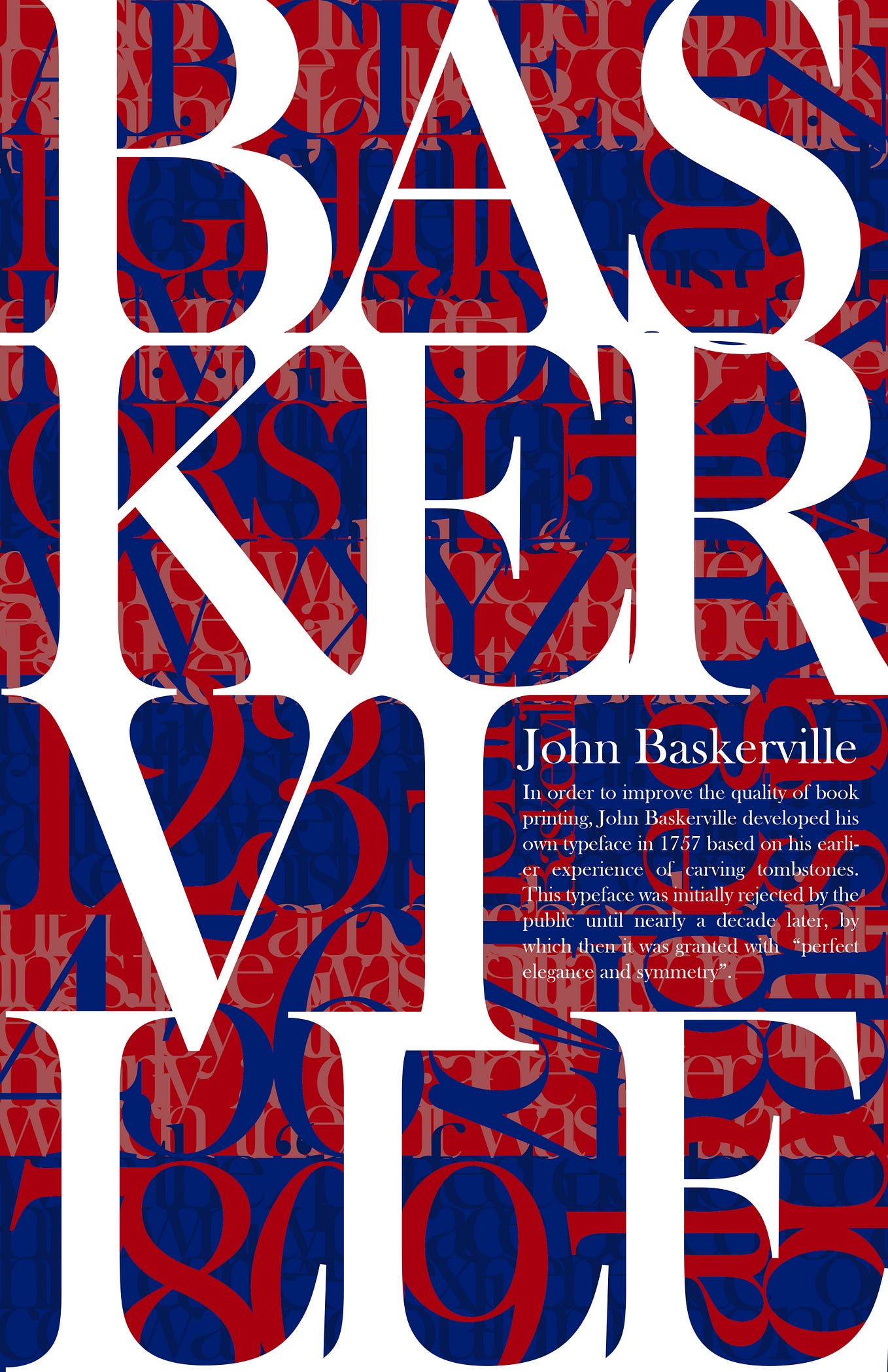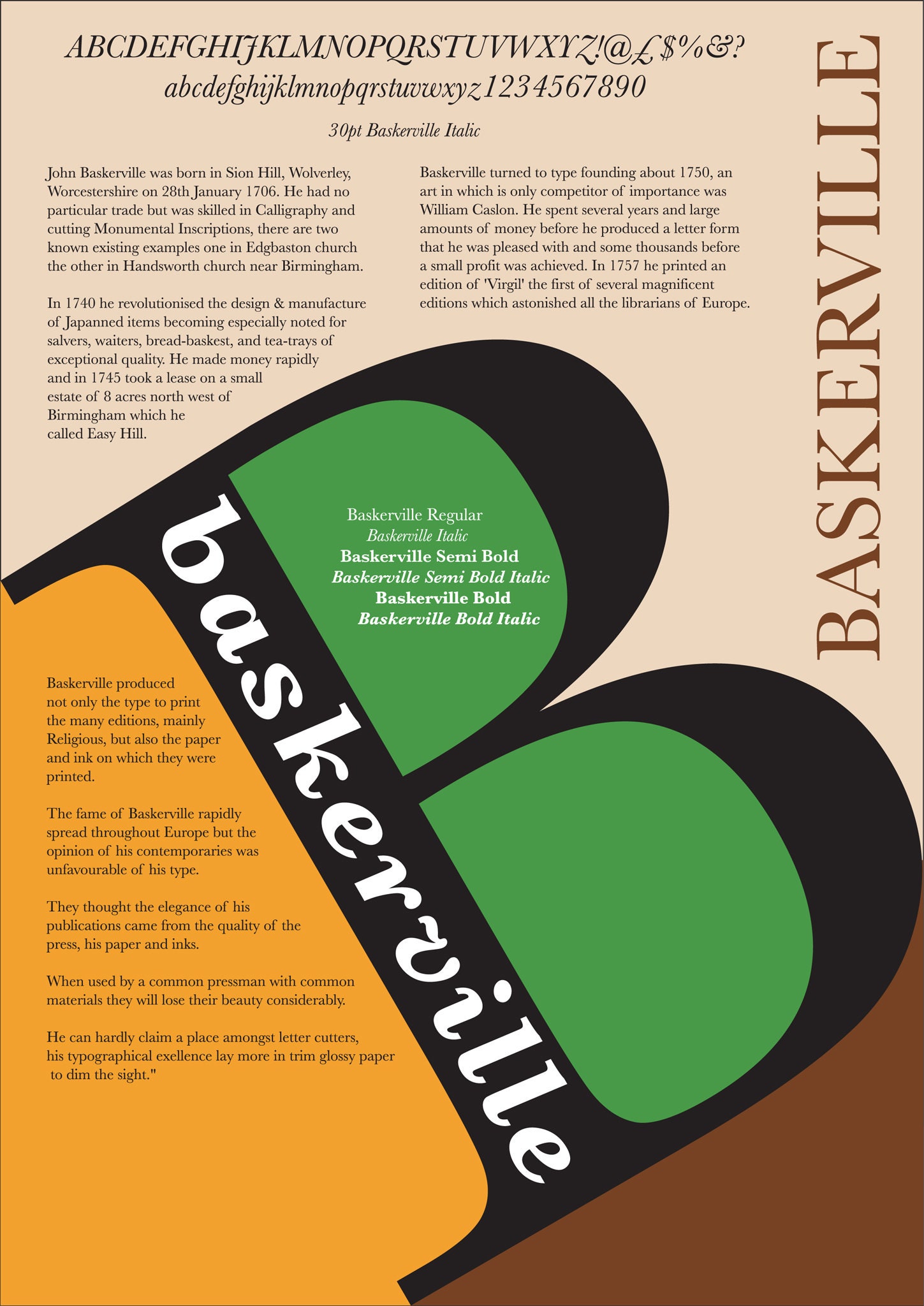
History Of Baskerville Font - The baskerville font emerged in an era where the written word was undergoing.
The baskerville font emerged in an era where the written word was undergoing.